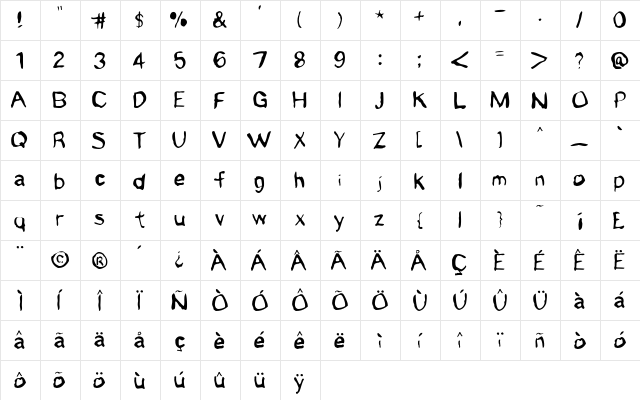
Gritzpop Medium
Design Context for Gritzpop Typeface
Gritzpop trades polish for personality, using distressed and eroded forms to bring grit and attitude to creative work.
Suited to punk-influenced zines, underground music branding, streetwear, and raw, anti-corporate design.
Pro Tip: Pair Gritzpop with intentionally raw or lo-fi design elements. Fighting against it with overly polished surroundings will undermine its personality.